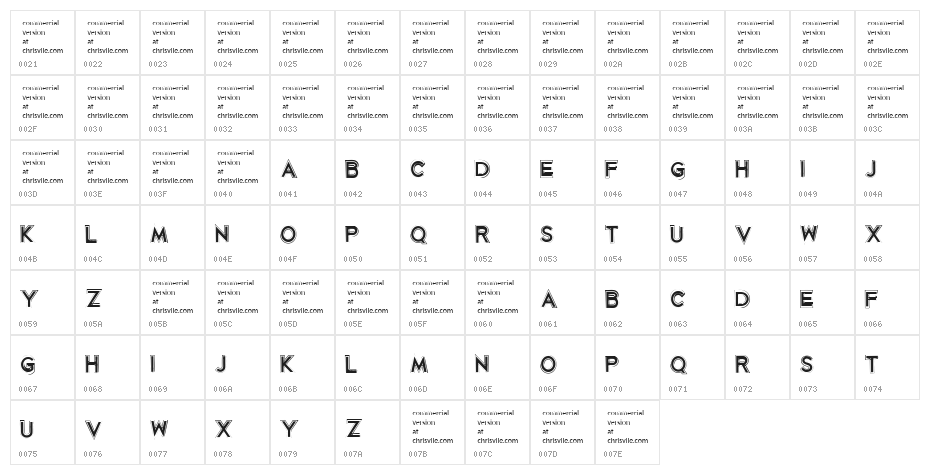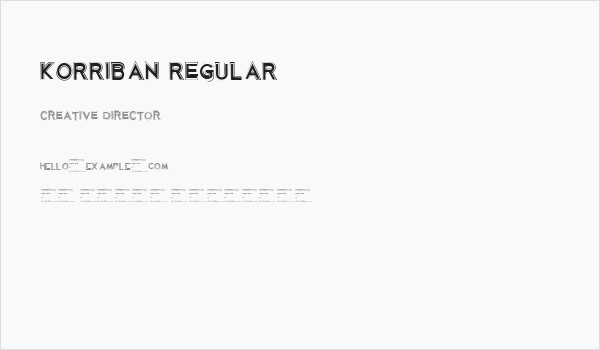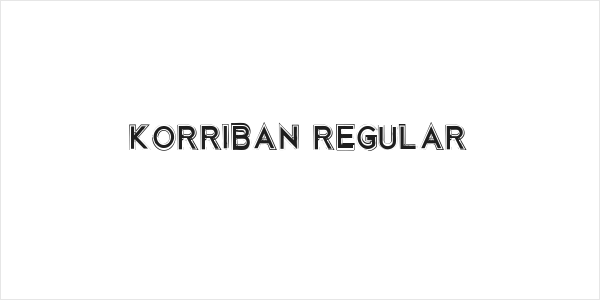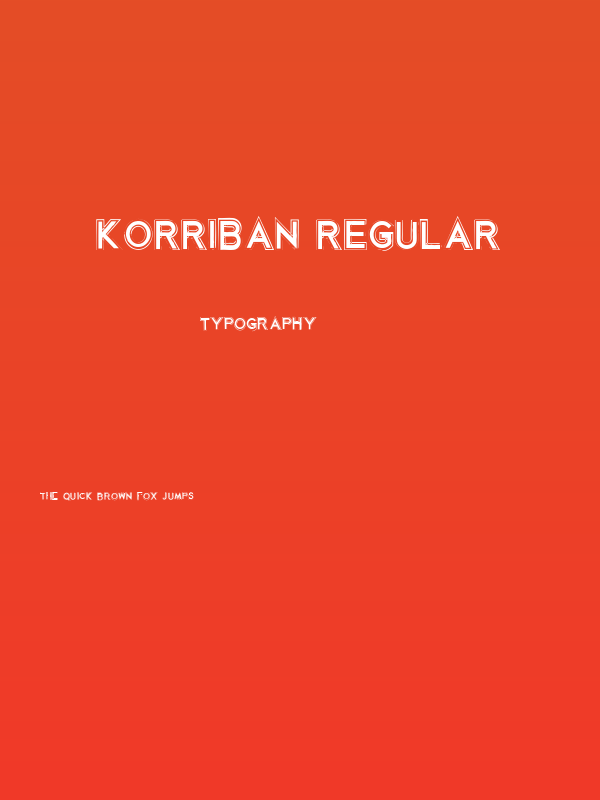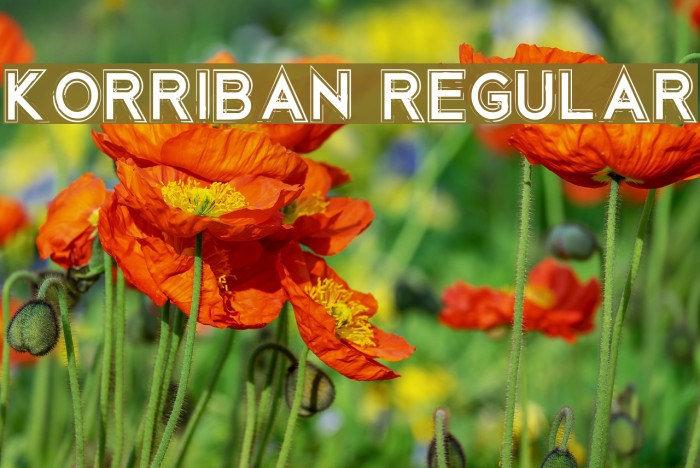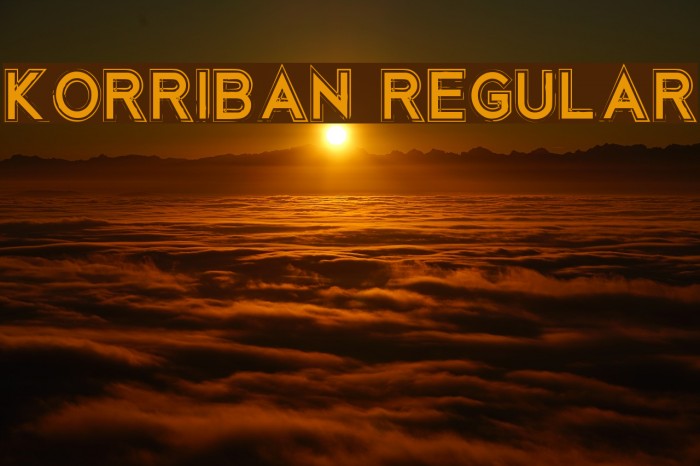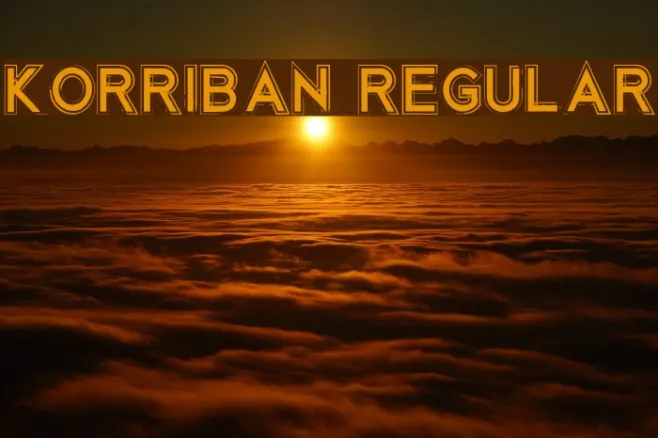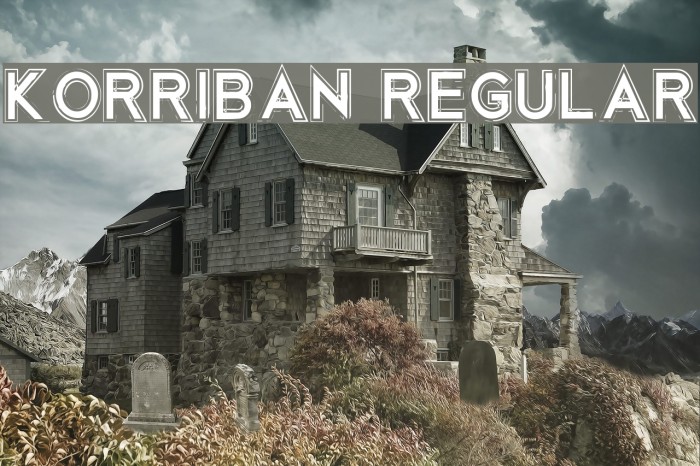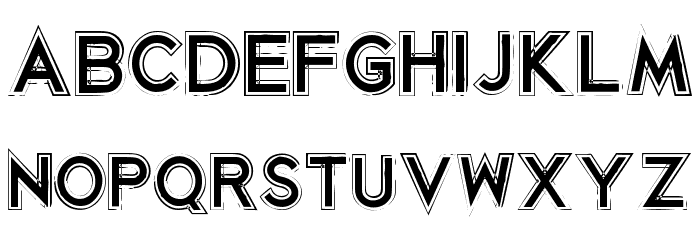
Korriban Regular Font
Korriban Regular Description
This font features a bold, geometric style with a distinct three-dimensional effect. The letters are outlined with a shadow that gives them depth and a striking appearance. The uppercase characters are uniform in height, with sharp angles and clean lines that convey a sense of modernity and strength. The design is consistent across all characters, maintaining a cohesive look that is both eye-catching and versatile. The font's structure makes it suitable for impactful headlines and titles, where its unique style can be fully appreciated.
| Proposed Projects | Ideal for use in posters, logos, and branding materials that require a modern and bold statement. |